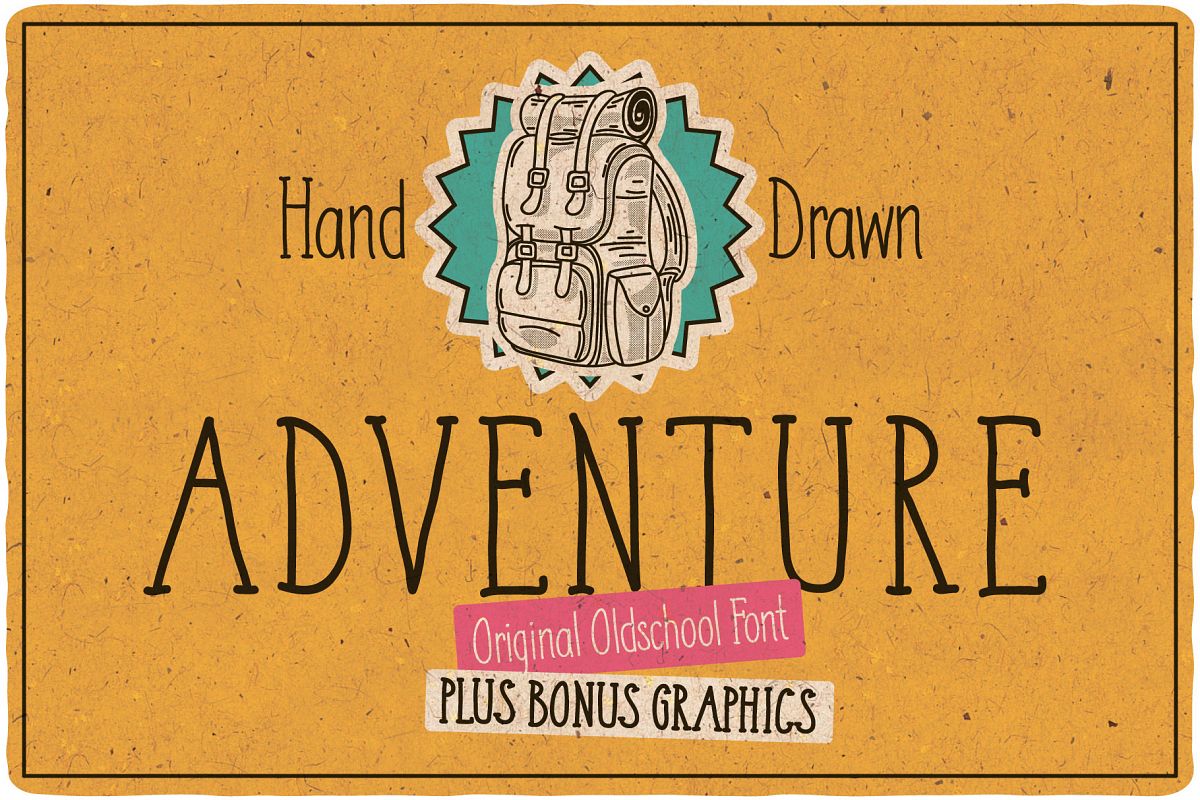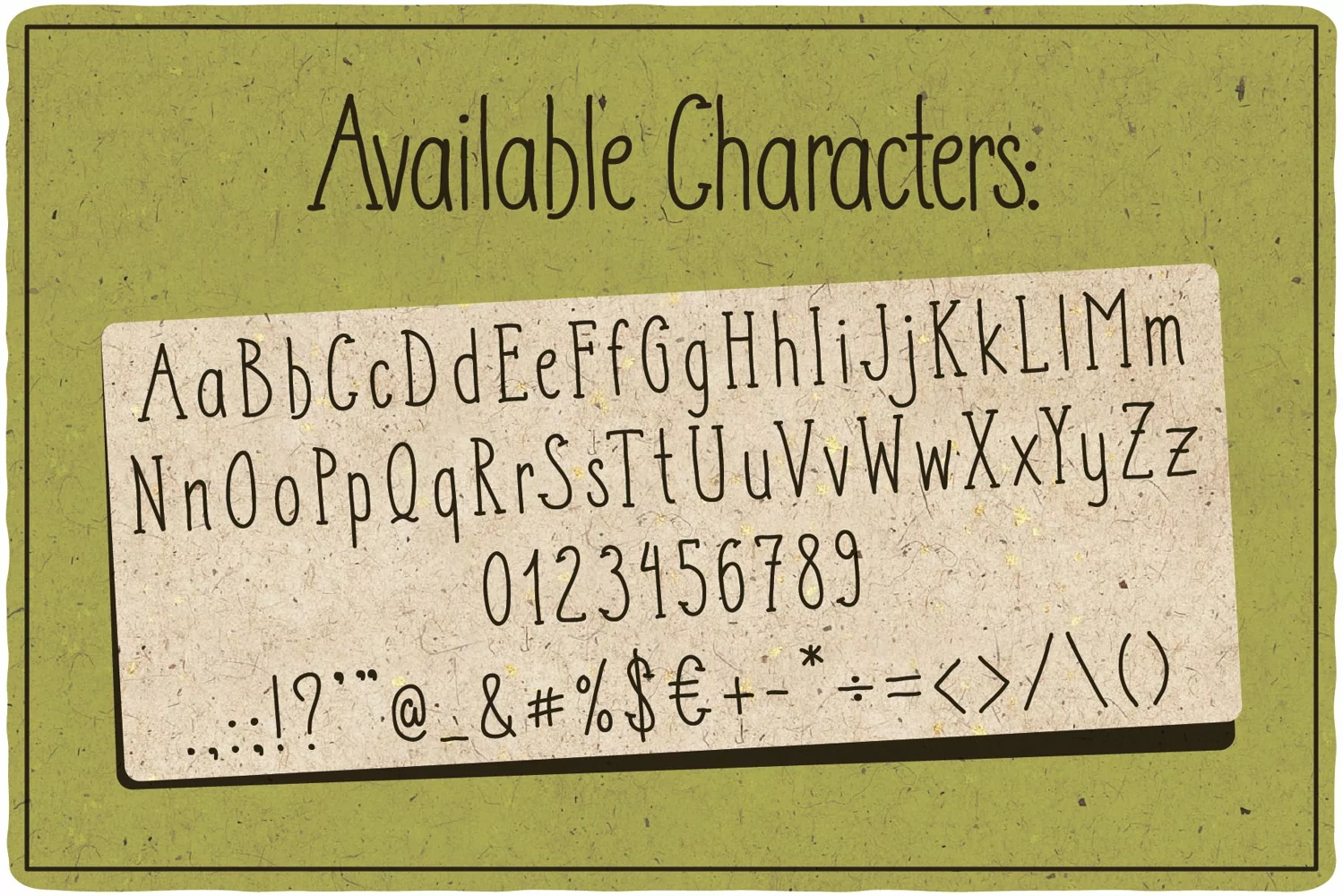
Adventure Typeface plus bonus graphics
Introducing a hand crafted oldschool label font named "Adventure".Typeface includes two styles - Regular and Bold. This font will good viewed on any retro design like poster, t-shirt, label, logo etc.